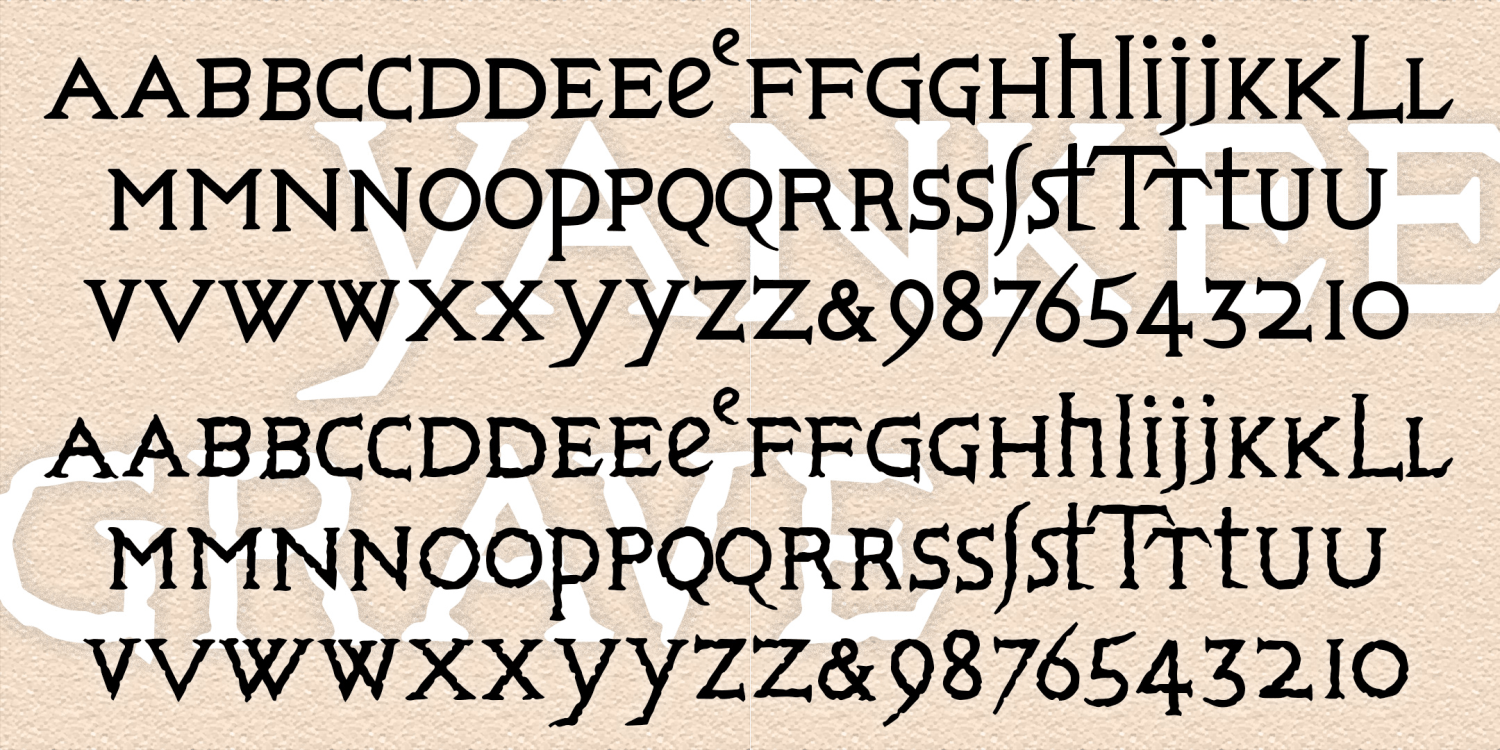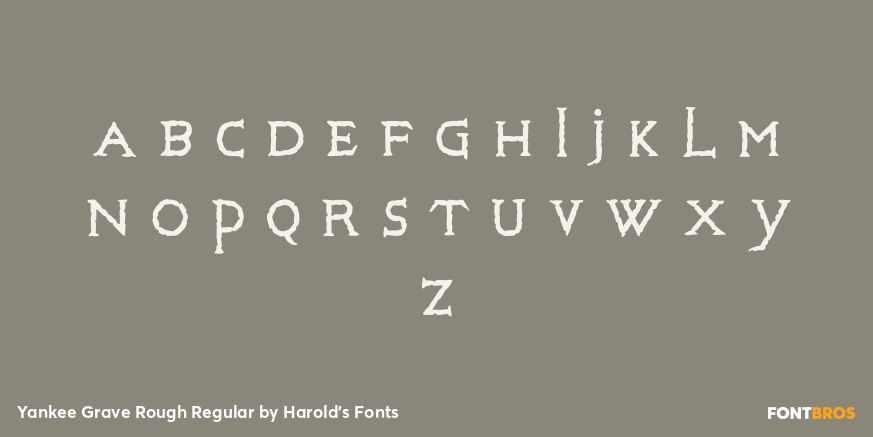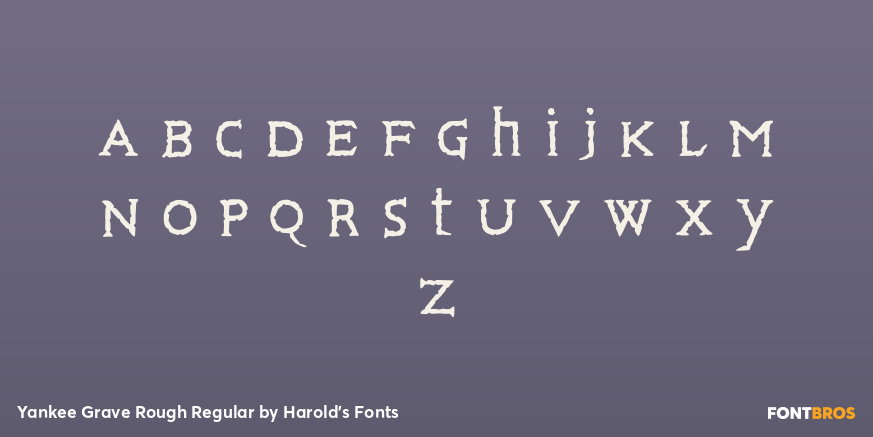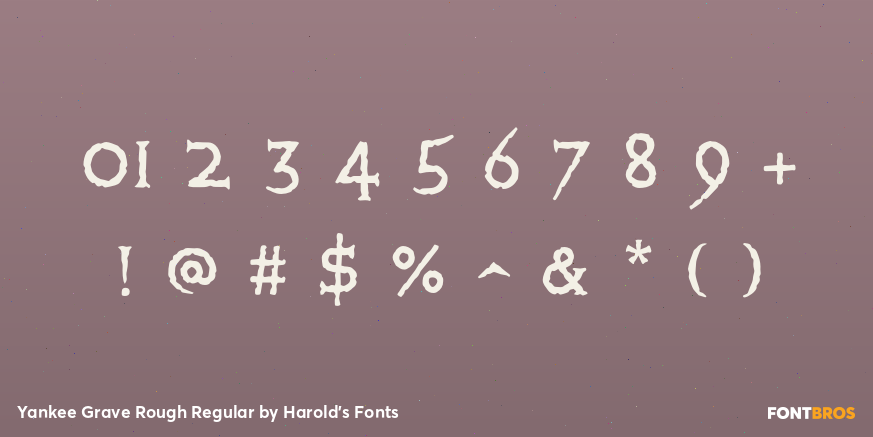
Yankee Grave Rough Regular
Font Style by Harold's Fonts
Buy NowYANKEE GRAVE is rustic and quirky, with potential effects ranging from historic to horrific. YANKEE GRAVE was inspired by the engraved inscriptions on a number of gravestones in northern Connecticut, made circa 1700. The carver used a mix of upper- and lowercase forms; each letter in my fonts has at least two forms as shown. In addition, there are other old-time goodies to give your work 300-year-old style! The Regular font has smooth outlines, the Rough has extra texture.